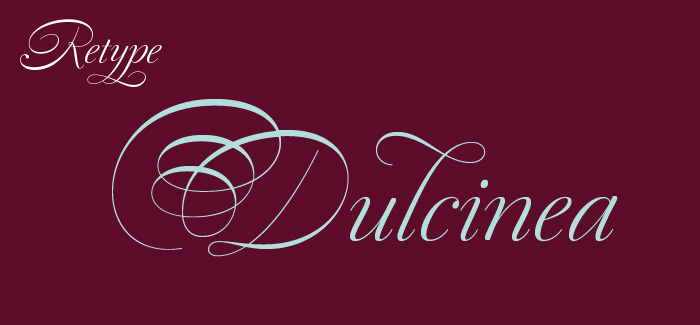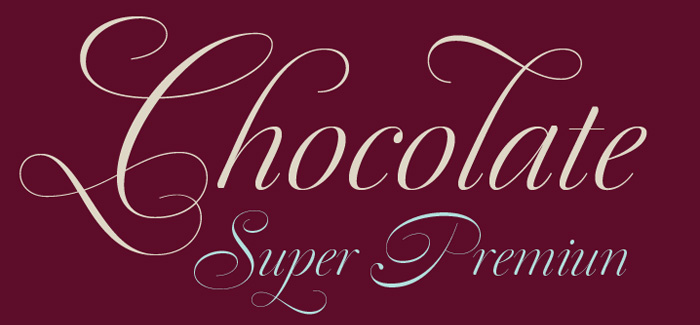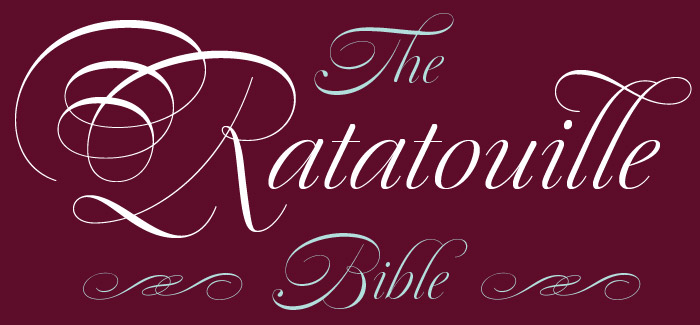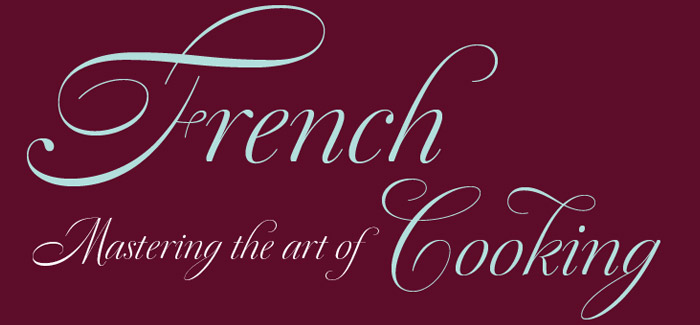
Dulcinea font
Dulcinea font by Ramiro Espinoza (Re-Type foundry) is named after “Dulcinea del Toboso”, the fictional beauty from Miguel de Cervantes’s ‘Don Quixote’, a work that reveals many of the period’s conflicts, such as the contrast between utopian ideals and reality, uncertainty and madness. “Dulcinea” is also the title of Ramiro Espinoza’s in-depth study on the Spanish Baroque calligraphy’s most extreme tendencies, and especially on some of those produced by the writing masters Pedro Díaz Morante and Juan Claudio Aznar de Polanco. These 17th and 18th centuries alphabets with their plentiful calligraphic flourishes represented a marked break with the harmonic and angular Renaissance Cancellaresca style.
It was Morante who first introduced and popularized the use of the pointed quill in Spain, and although his famous text entitled “Arte Nueva de escribir” – first volume published in 1616 – contains alphabets that have much in common with traditional broad nib Cancellaresca calligraphy, most of the examples therein are outgrowths of the new models put forward by the Italian master Gianfrancesco Cresci.
The lettering swashes are complex and intricate, but at the same time they feature a profusion of defects. Many of them sometimes come close to ugliness. However, these pages contain an artistic essence that bears a relationship to the ironic and sometimes somber character of Spanish Baroque.
Dulcinea font however is neither just a revival , nor a mere digitalization of a script. In fact, the typeface’s author says that had the font been created that way it would have been too archaic to serve as acceptable contemporary typography. However, he believes that there are myriad interesting details that can be rescued and preserved, along with the playful spirit of the original.
Dulcinea font creation process consisted of combining original historical elements with the creativity and calligraphy craftsmanship of its author in order to produce a modern typography that isn’t based on the same traditional sources as many recently created scripts fonts.
Dulcinea font provides a plenty of texts setting and headlines options: generous ligatures and swashes along with intricate alternate characters. Its sophisticated and gracious shapes make it a prefect choice for ladies’ magazines, recipe books, lingerie products and luxury packaging.